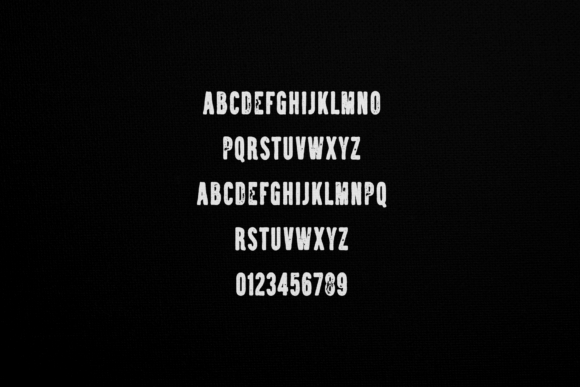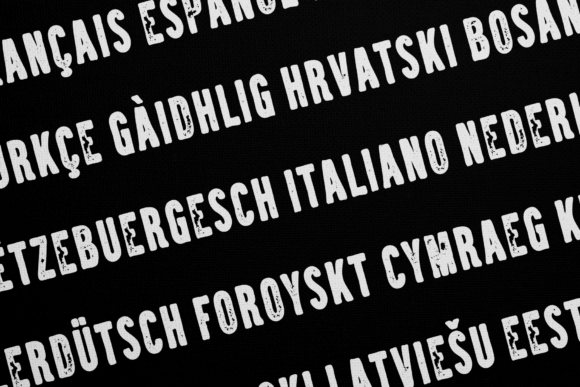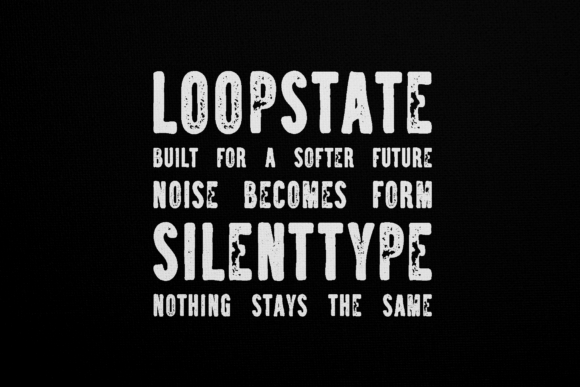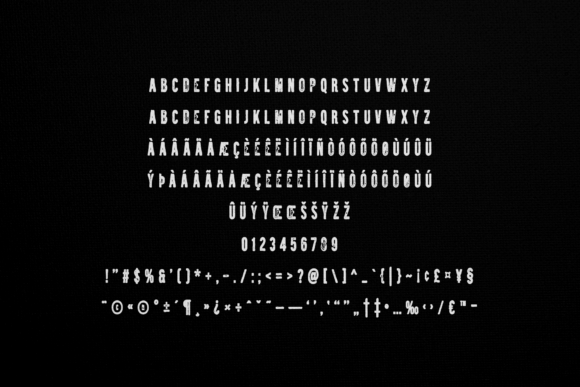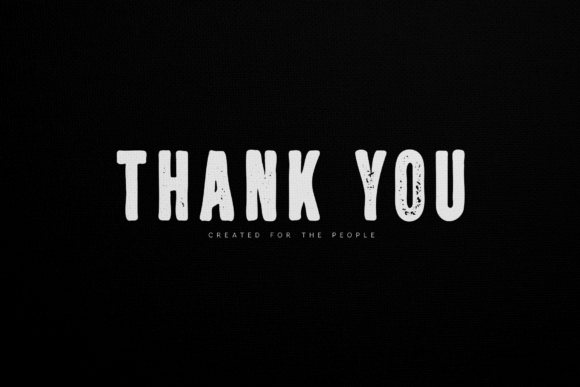
The Perfect Font for the Unapologetic: Introducing Brawn Font
Have you ever stared at a blank canvas, itching to create something bold and unapologetic? I have, and it’s exactly that feeling that sparked the creation of the Brawn Font. A heavy-duty, industrial-strength typeface that embodies power, grit, and unyielding durability, Brawn Font is designed to command respect and leave a lasting impression.
Whether you’re designing for the construction industry, high-intensity fitness, or heritage workwear brands, the Brawn Font is a valuable addition to your toolkit. Its solid, blocky structure ensures maximum visibility from a distance, making it perfect for billboard advertising, signage, and product packaging. And with its distressed surface, you can add a layer of history and authenticity to your brand, suggesting a story of hard work and resilience.
With the Brawn Font, you can create a “brawn-meets-brains” aesthetic that feels both powerful and sophisticated. Pair it with a light, technical sans-serif font to add a touch of elegance and sophistication. The possibilities are endless, and the Brawn Font is the perfect starting point for your next design project.
Brawn Font Key Features
- Font Family: Brawn Font is a sans-serif font family designed for use in digital media.
- Unique Characteristics: Brawn Font is known for its strong and modern design, making it suitable for use in headings and titles.
- Font Style: Available in Regular, Bold, Italic, and Bold Italic styles, providing flexibility for designers and typographers.
Brawn Font Review
I recently had the chance to work with the Brawn font, and I must say it’s a mixed bag. Here are my thoughts on what works well and what doesn’t.
- The Brawn font has a unique, rugged feel to it that can add a lot of character to your designs. It’s perfect for projects that need a bit of an edge.
- The font is highly customizable, with a range of weights and styles to choose from. This makes it easy to adapt to different design contexts.
- The Brawn font is highly legible, even at small font sizes. This is a big plus for projects where readability is a concern.
- The Brawn font can feel a bit overbearing in some contexts. Its rugged feel can be overwhelming if not used carefully.
- The font may not be the best choice for projects that require a lot of fine typography or precision. Its bold, blocky style can make it difficult to achieve the desired level of detail.
Overall, the Brawn font is a solid choice for projects that need a bit of grit and character. While it may have some limitations, its unique feel and high level of customization make it a versatile tool for designers. Just be sure to use it thoughtfully and in the right context.
For the most out of Brawn Font, use it for bold and eye-catching headings and titles. It’s perfect for sports, fitness, and action-oriented themes. You can also use it for creating a strong and modern feel in your designs.
Alternatives to Brawn Font
Open Sans Font is a sans-serif typeface designed by Steve Matteson. It is ideal for use in body text, particularly in digital interfaces, due to its clear and readable design. Open Sans Font is more neutral and has a more rounded feel compared to Brawn Font, which has a more rugged feel.
4. Raleway Font
Raleway Font is a sans-serif typeface designed by Matt McInerney. It is suitable for use in titles, headings, and other display typography due to its elegant and refined feel. Raleway Font is more elegant and has a more pronounced vertical feel compared to Brawn Font, which has a more horizontal feel.
What is the recommended font size and line height for Brawn Font?
The recommended font size for Brawn Font is between 12-24 points, depending on the desired level of detail and readability. For optimal readability, we recommend a line height of at least 1.5 times the font size. This will ensure that the text is clear and easy to read.